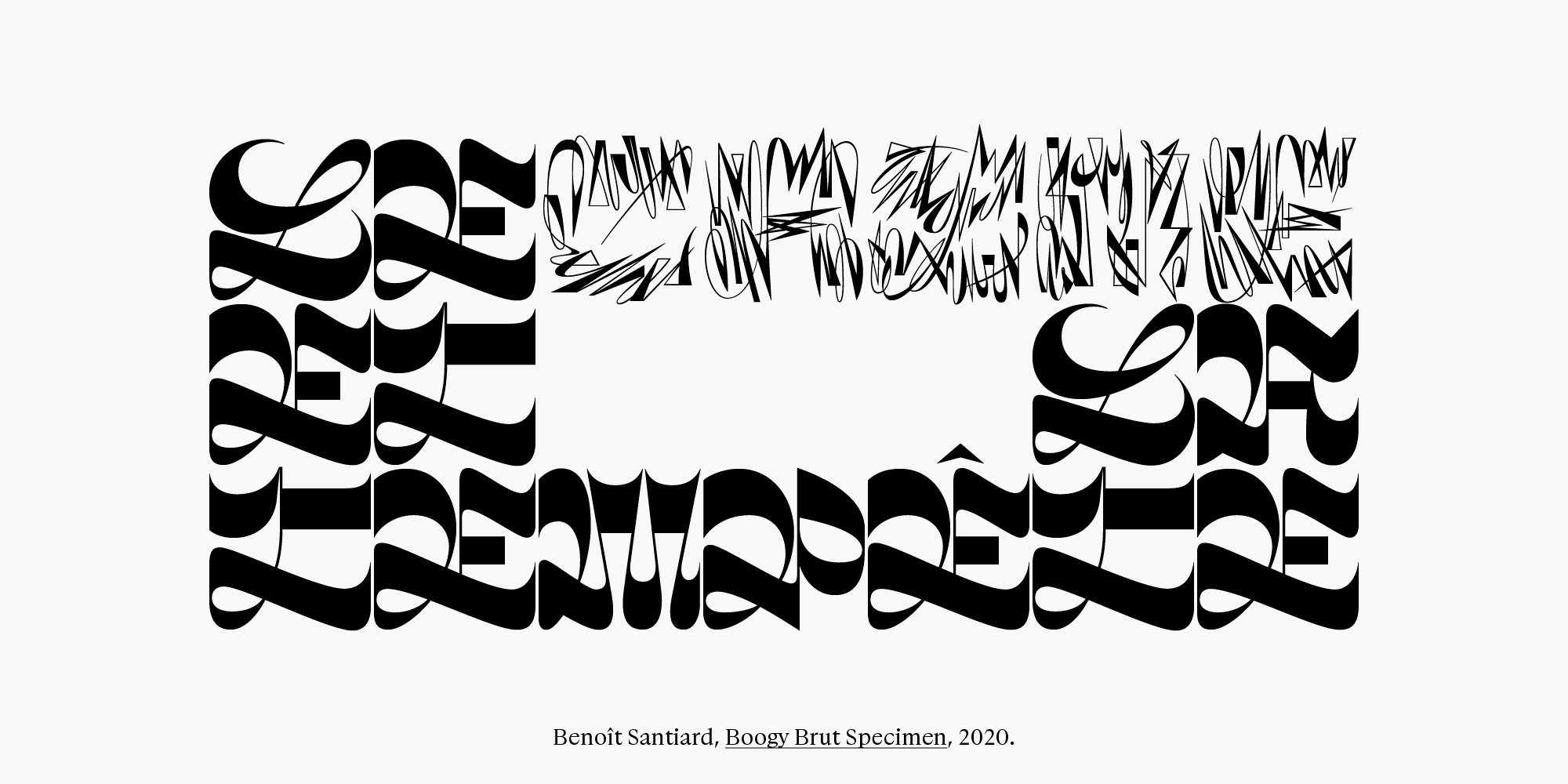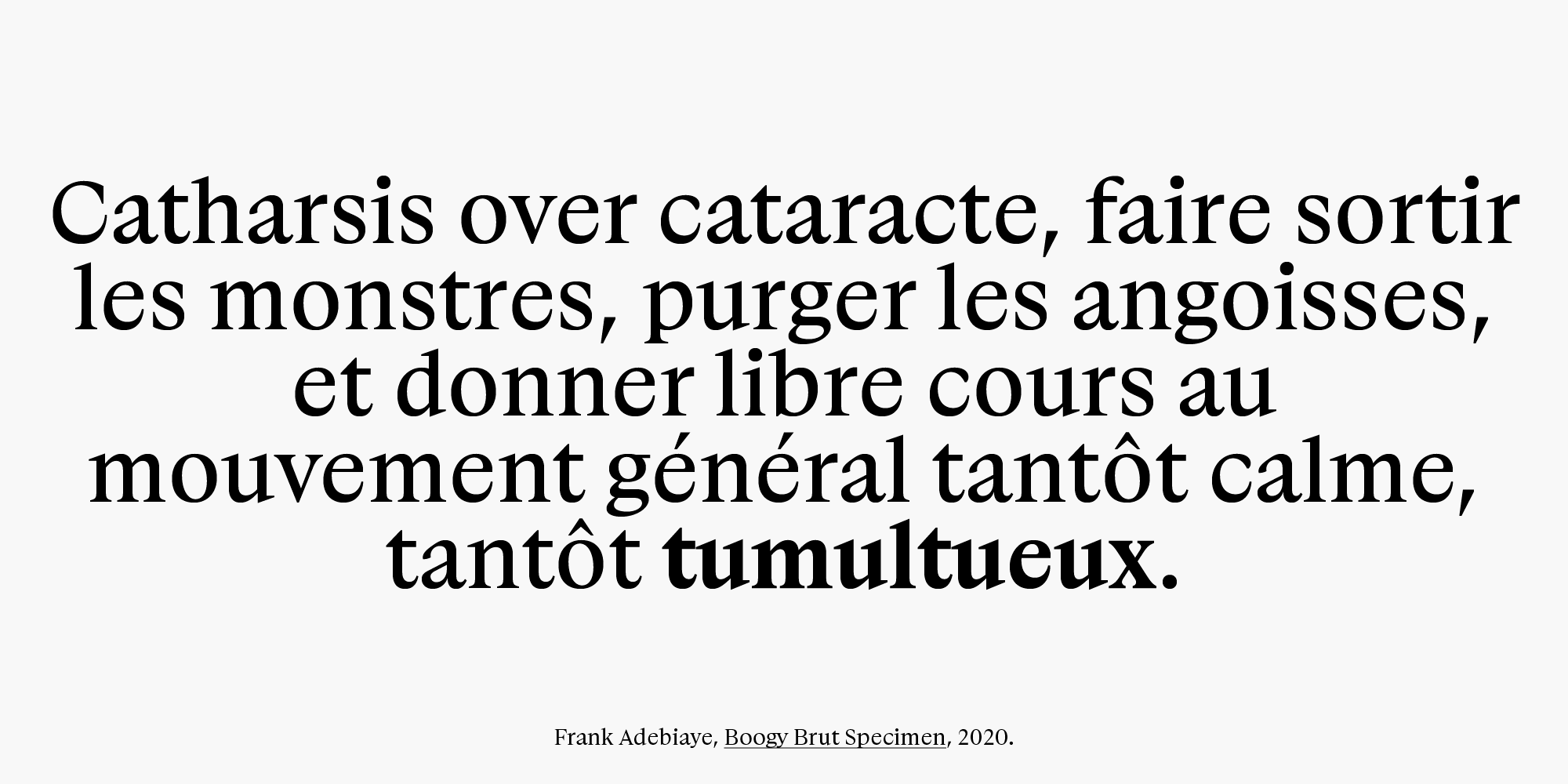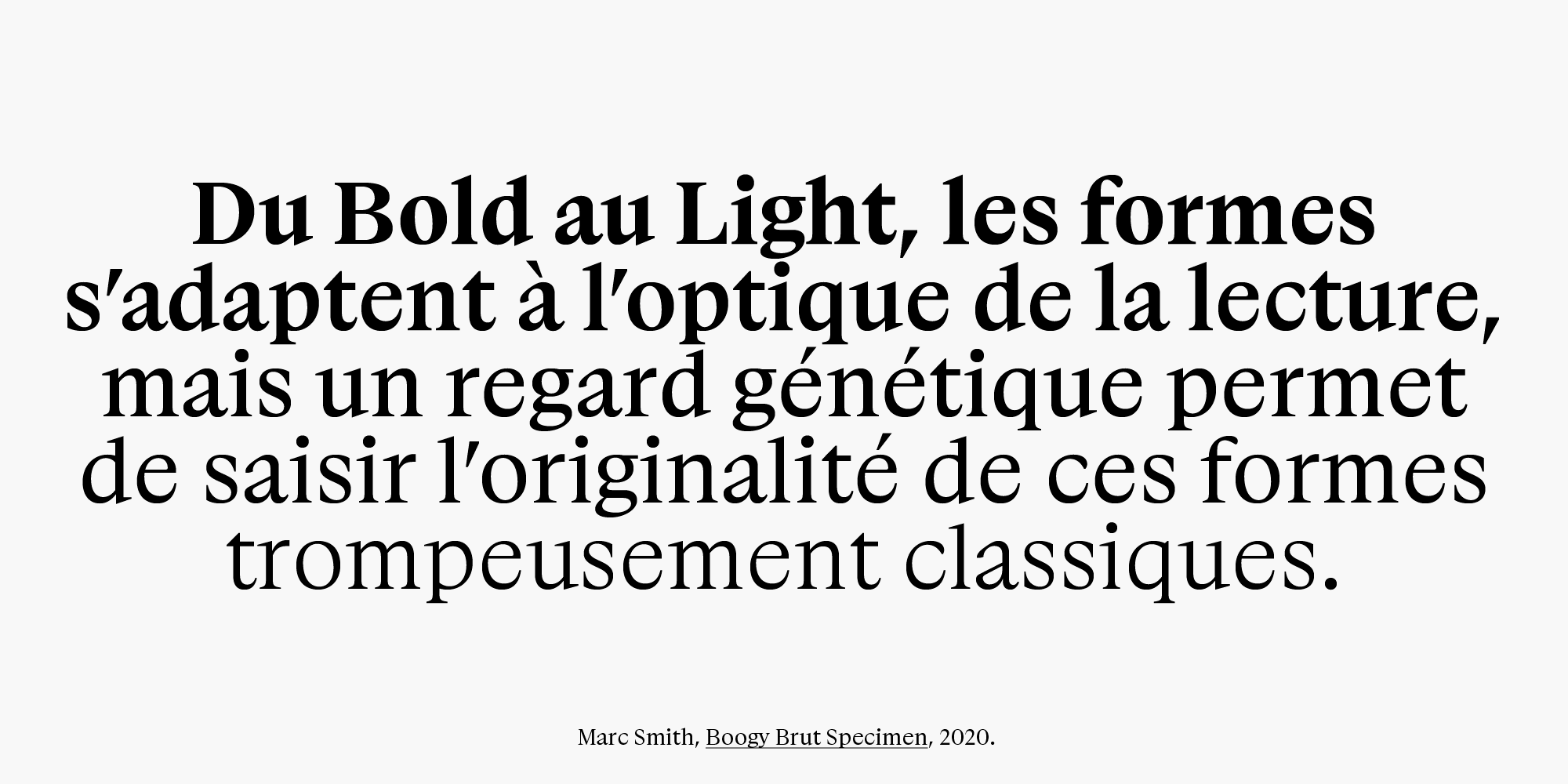
Boogy Brut Font Free Download - Web it allows the installation of the font file on a desktop computer and a laptop only. Web boogy brut in use. Boogy brut is a serif typeface designed by bureau brut in collaboration with calligrapher julien priez (known as boogy. Web boogy brut thus is free from any reference to a particular model, rather a synthesis of various researches and. Comes in 5 (roman) weights from light to bold. The boogy brut family offers a wide spectrum of uses, from drop caps to poster type to text sizes. Accompanied by boogy brut poster (2 weights) as well as. All print, web, app, epub use included.
All print, web, app, epub use included. Web it allows the installation of the font file on a desktop computer and a laptop only. Accompanied by boogy brut poster (2 weights) as well as. Comes in 5 (roman) weights from light to bold. Web boogy brut in use. Boogy brut is a serif typeface designed by bureau brut in collaboration with calligrapher julien priez (known as boogy. The boogy brut family offers a wide spectrum of uses, from drop caps to poster type to text sizes. Web boogy brut thus is free from any reference to a particular model, rather a synthesis of various researches and.
Web it allows the installation of the font file on a desktop computer and a laptop only. Web boogy brut in use. Comes in 5 (roman) weights from light to bold. Accompanied by boogy brut poster (2 weights) as well as. The boogy brut family offers a wide spectrum of uses, from drop caps to poster type to text sizes. Boogy brut is a serif typeface designed by bureau brut in collaboration with calligrapher julien priez (known as boogy. All print, web, app, epub use included. Web boogy brut thus is free from any reference to a particular model, rather a synthesis of various researches and.
Boogy Brut Bureau Brut
Web boogy brut in use. Comes in 5 (roman) weights from light to bold. Accompanied by boogy brut poster (2 weights) as well as. Boogy brut is a serif typeface designed by bureau brut in collaboration with calligrapher julien priez (known as boogy. All print, web, app, epub use included.
Boogy Brut Bureau Brut
Web boogy brut in use. All print, web, app, epub use included. Web boogy brut thus is free from any reference to a particular model, rather a synthesis of various researches and. Web it allows the installation of the font file on a desktop computer and a laptop only. Comes in 5 (roman) weights from light to bold.
Accompanied by boogy brut poster (2 weights) as well as. Web it allows the installation of the font file on a desktop computer and a laptop only. Boogy brut is a serif typeface designed by bureau brut in collaboration with calligrapher julien priez (known as boogy. Comes in 5 (roman) weights from light to bold. Web boogy brut in use.
Julien Priez
Accompanied by boogy brut poster (2 weights) as well as. Web boogy brut in use. Web it allows the installation of the font file on a desktop computer and a laptop only. Comes in 5 (roman) weights from light to bold. Boogy brut is a serif typeface designed by bureau brut in collaboration with calligrapher julien priez (known as boogy.
Boogy Brut Font
All print, web, app, epub use included. Web it allows the installation of the font file on a desktop computer and a laptop only. Accompanied by boogy brut poster (2 weights) as well as. Web boogy brut thus is free from any reference to a particular model, rather a synthesis of various researches and. Web boogy brut in use.
Boogy Brut Font
Comes in 5 (roman) weights from light to bold. Boogy brut is a serif typeface designed by bureau brut in collaboration with calligrapher julien priez (known as boogy. Web boogy brut in use. The boogy brut family offers a wide spectrum of uses, from drop caps to poster type to text sizes. All print, web, app, epub use included.
Boogy Brut Font
Accompanied by boogy brut poster (2 weights) as well as. Boogy brut is a serif typeface designed by bureau brut in collaboration with calligrapher julien priez (known as boogy. Web boogy brut in use. Web it allows the installation of the font file on a desktop computer and a laptop only. The boogy brut family offers a wide spectrum of.
Boogy Brut Bureau Brut
Boogy brut is a serif typeface designed by bureau brut in collaboration with calligrapher julien priez (known as boogy. Accompanied by boogy brut poster (2 weights) as well as. Web boogy brut thus is free from any reference to a particular model, rather a synthesis of various researches and. All print, web, app, epub use included. Comes in 5 (roman).
Boogy Brut Bureau Brut
Accompanied by boogy brut poster (2 weights) as well as. Boogy brut is a serif typeface designed by bureau brut in collaboration with calligrapher julien priez (known as boogy. Comes in 5 (roman) weights from light to bold. Web boogy brut in use. Web boogy brut thus is free from any reference to a particular model, rather a synthesis of.
Boogy Brut Font Family » Free Download Vector Stock Image Icon
Web boogy brut thus is free from any reference to a particular model, rather a synthesis of various researches and. The boogy brut family offers a wide spectrum of uses, from drop caps to poster type to text sizes. Comes in 5 (roman) weights from light to bold. Web boogy brut in use. Accompanied by boogy brut poster (2 weights).
Accompanied By Boogy Brut Poster (2 Weights) As Well As.
Web it allows the installation of the font file on a desktop computer and a laptop only. Boogy brut is a serif typeface designed by bureau brut in collaboration with calligrapher julien priez (known as boogy. Web boogy brut in use. All print, web, app, epub use included.
Web Boogy Brut Thus Is Free From Any Reference To A Particular Model, Rather A Synthesis Of Various Researches And.
Comes in 5 (roman) weights from light to bold. The boogy brut family offers a wide spectrum of uses, from drop caps to poster type to text sizes.